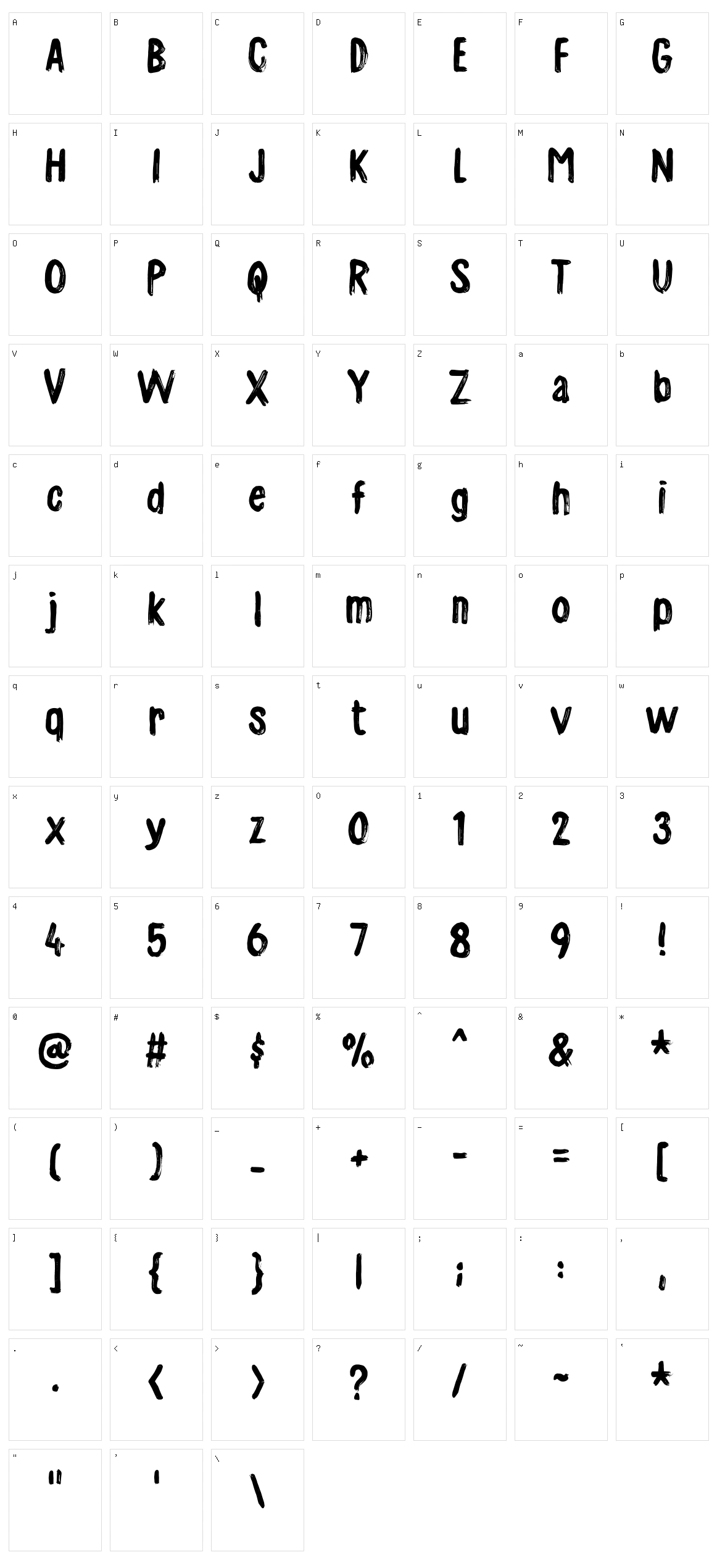
The free font Charmelade is carefully designed by bogstav, showcasing a thoughtful balance of creativity and usability and falls under the Script font style. When you download the ZIP file, it contains only 96.68 KB of font files, making it lightweight and quick to download. Please review the license details below to understand permitted usage and distribution rights. If license information is not available, we recommend using this font for personal projects only or contacting the author directly for commercial usage permissions.